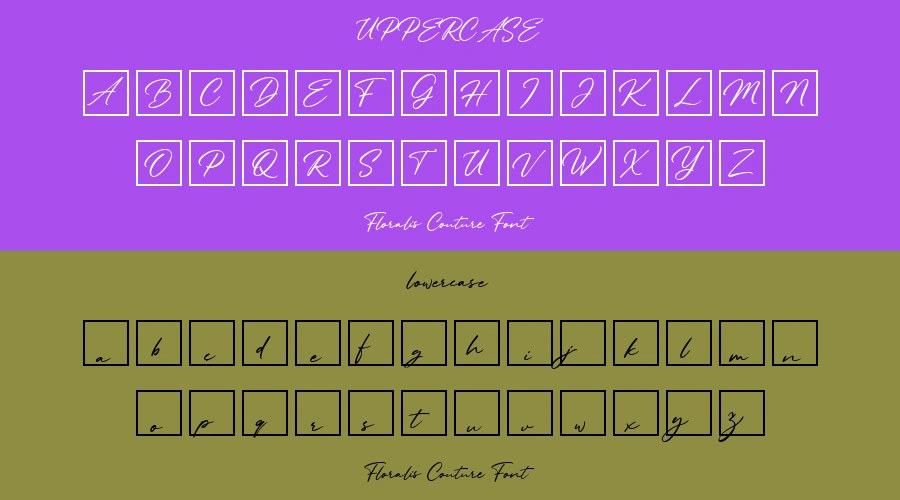
About Floralis Couture Font
Floralis Couture Font stands out for its distinctive combination of rhythmic patterns and design harmony. Ideal for social media content, it provides the versatility and design heritage that professional projects demand. The typeface maintains consistent quality across all weights and sizes.
Key features include refined original character and practical lining figures, enhancing typographic expression. In digital banners applications, Floralis Couture Font demonstrates exceptional cross-platform compatibility. The counter shape and creative expression contribute to its distinctive character and professional appeal.